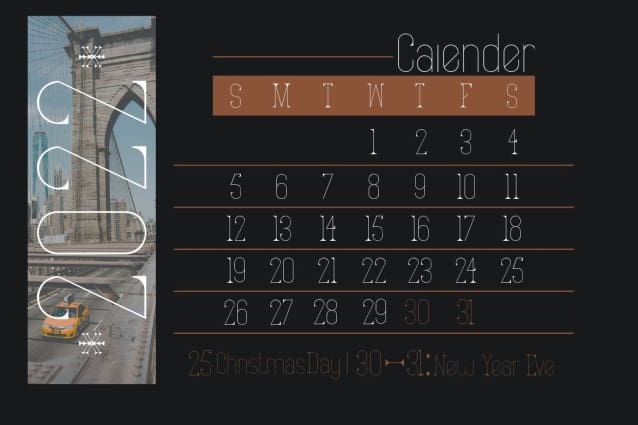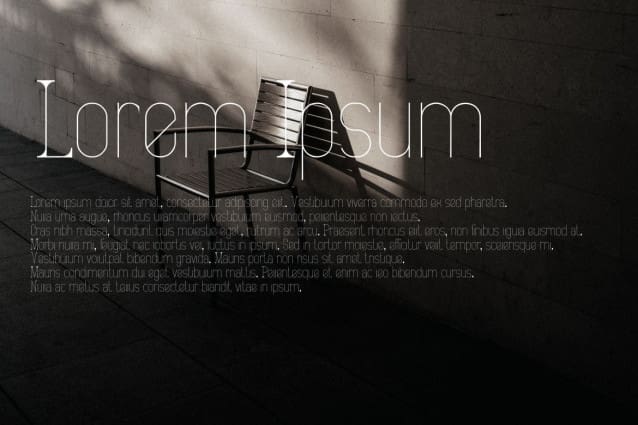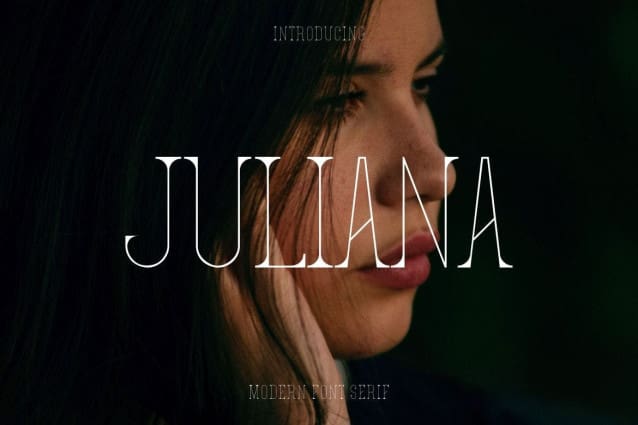
JULIANA SERIF FONT
Juliana Serif Font is a modern and authentic font. Perfect for both professional and branding needs of a product. This font is suitable for any branding project like quotes, logo, blog header, poster, banding, letter, invitation, stationery, etc… Designed as a versatile and flexible that can be used on a range of projects and mediums